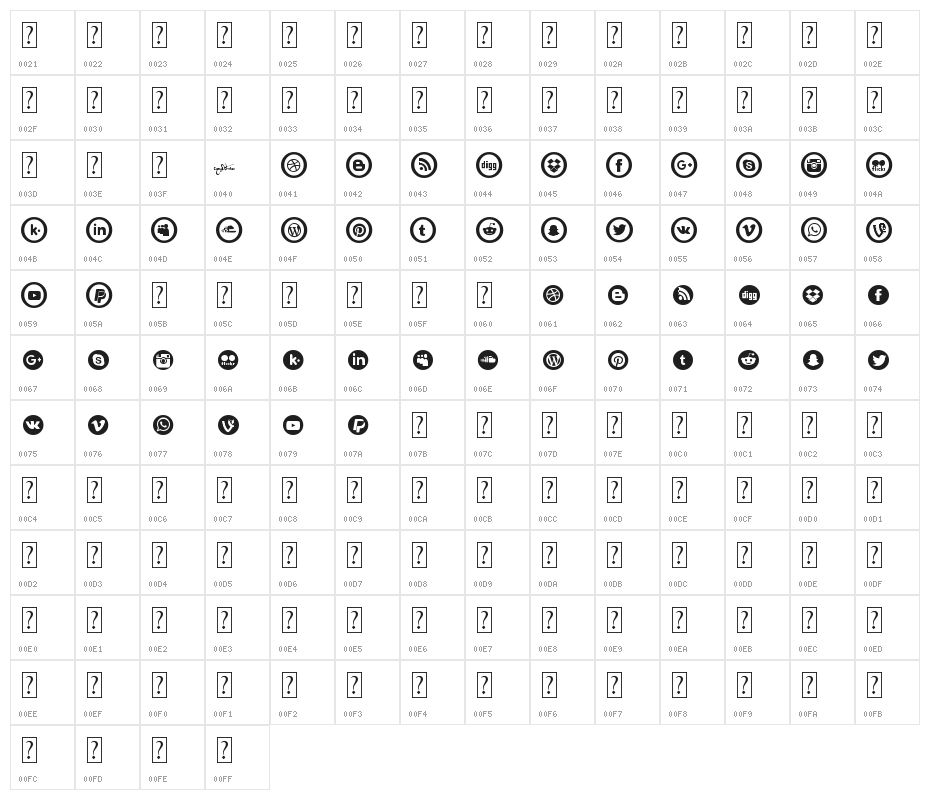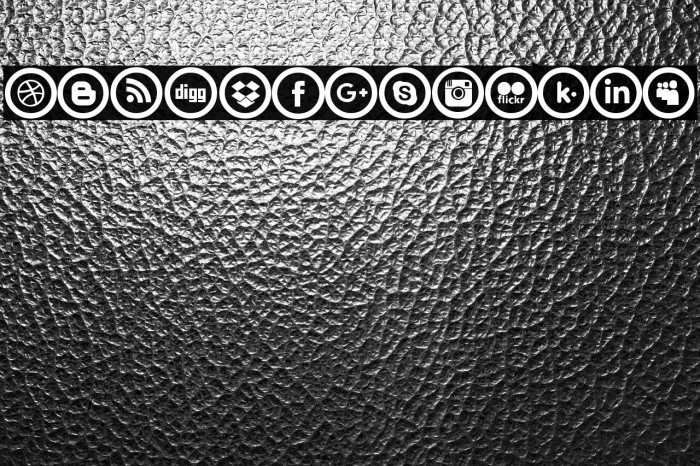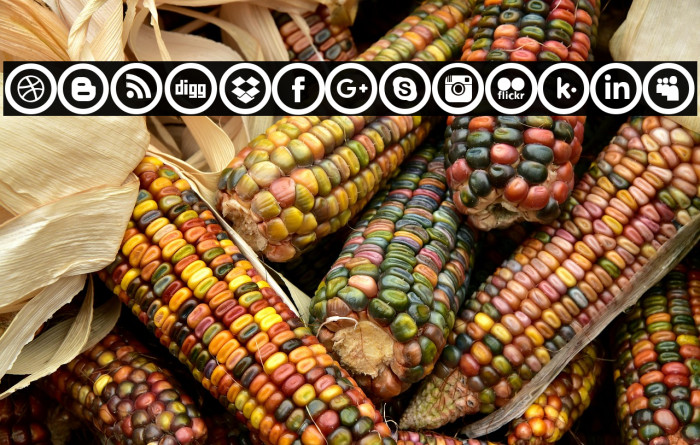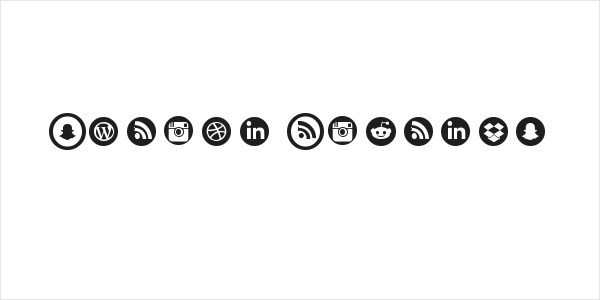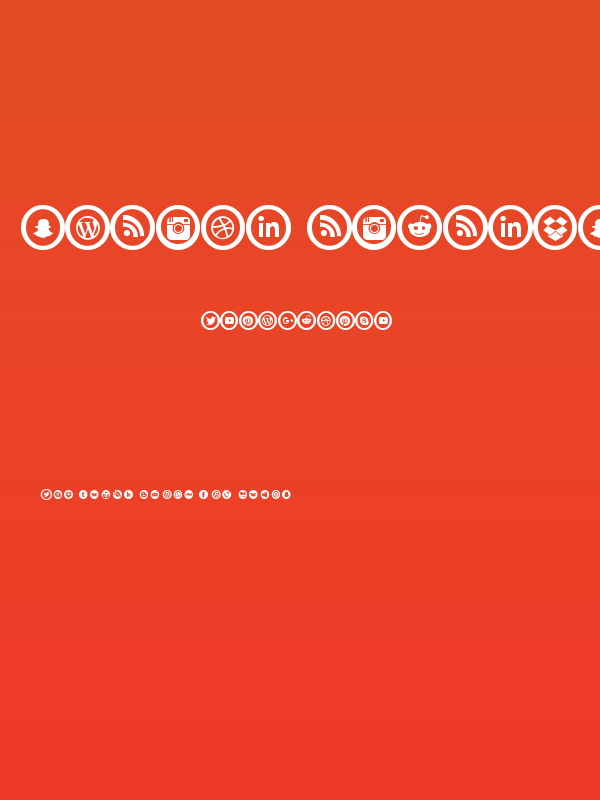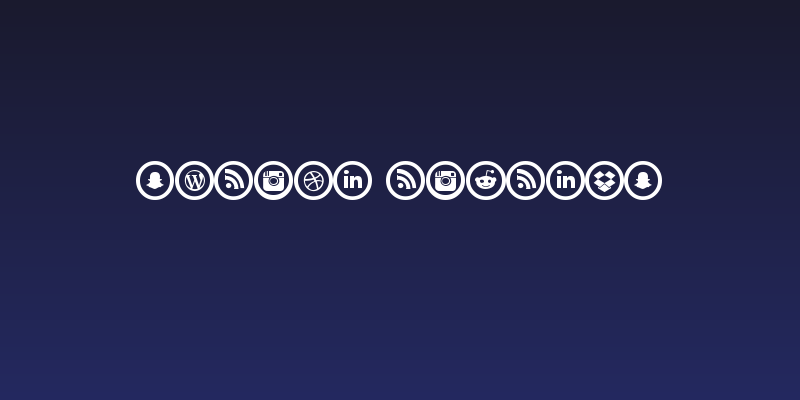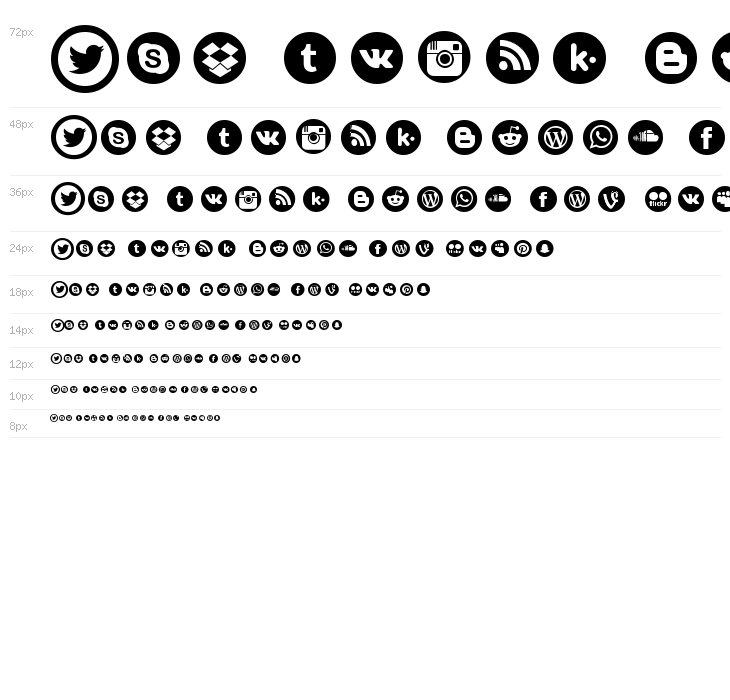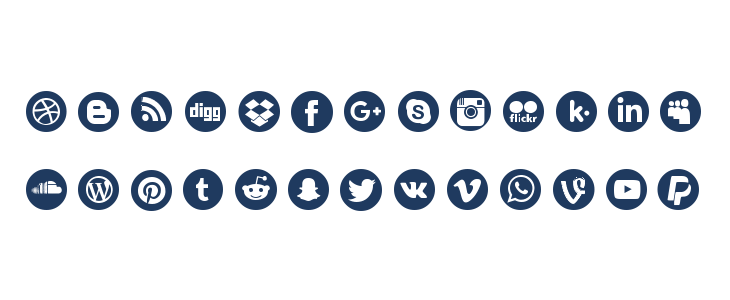
Social Circles Font
Social Circles Description
This set of icons features a collection of social media and web service logos encapsulated within circular shapes. Each icon is designed with a minimalist approach, using solid black for the symbols and a contrasting white for the background, creating a bold and easily recognizable appearance. The icons include popular platforms such as Facebook, Twitter, Instagram, and more, each maintaining its distinct brand identity while conforming to the uniform circular design. The consistent use of circles provides a cohesive look, making them suitable for various digital and print applications. The icons are ideal for use in web design, app interfaces, and marketing materials where a clean and modern aesthetic is desired.
| Use Case | Logos, Icons, Digital Interfaces |
| Proposed Projects | Ideal for web design, app interfaces, marketing materials, and branding projects requiring social media integration. |